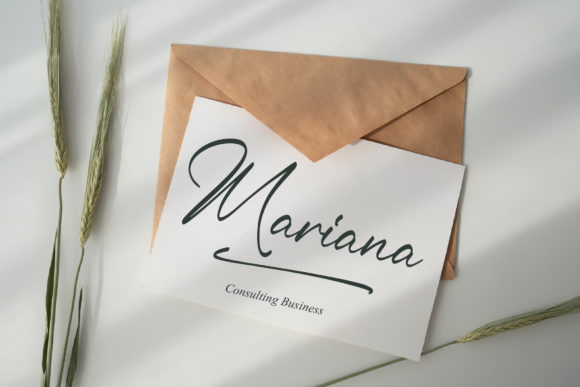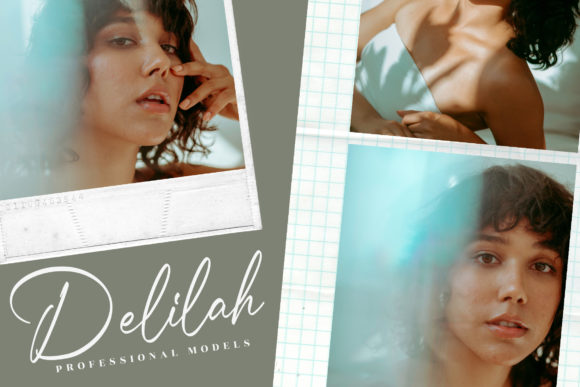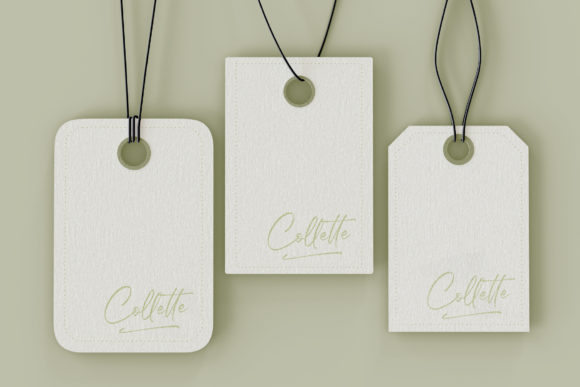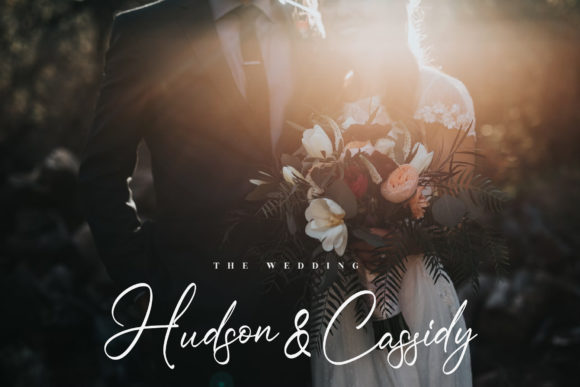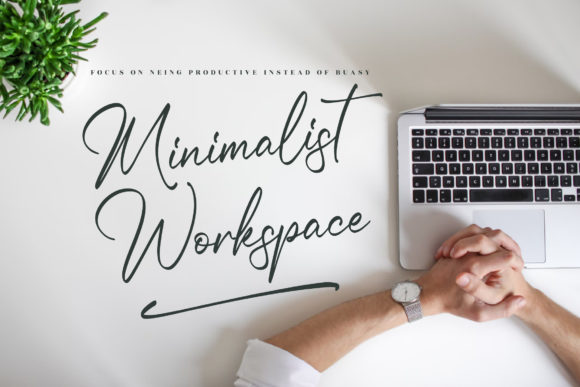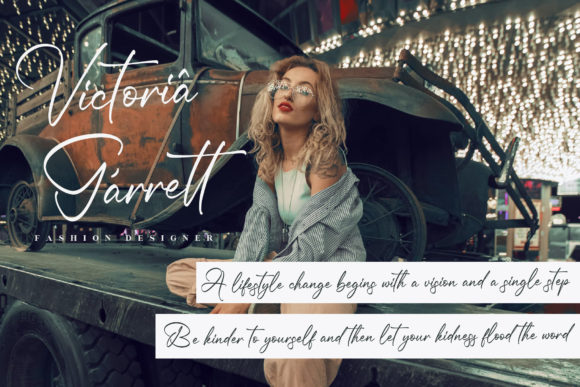
Introduction to Rasttelina Font
Have you ever found yourself in the midst of a creative project, staring at a blank page, and wondering what the perfect font can do to bring your vision to life? For designers, the right font can be the difference between a good design and a great one. It’s that one element that can elevate the entire aesthetic of your work and leave a lasting impression on your audience.
That’s where the Rasttelina Font comes in – a beautiful script font that exudes elegance and sophistication. With its contemporary atmosphere and impeccable form, inspired by timeless classic calligraphy, this font is a valuable resource for designers looking to add a touch of high quality to their creative projects. Whether you’re working on a design project that requires a transparent background or simply want to add some flair to your typography, Rasttelina Font is an excellent choice.
Key Features of Rasttelina Font
- High-quality font design suitable for creative projects, offering a unique aesthetic.
- Features a unique blend of modern and vintage elements, setting it apart from other fonts in its class.
- Designed with high resolution in mind, ensuring crisp and clear text display at various sizes and resolutions.
- Perfect for use in digital design, print media, and other creative projects where a distinctive font is desired.
Honest Review: Rasttelina Font
- ✨ High-quality design: The Rasttelina Font boasts a unique and modern aesthetic that’s perfect for creative projects.
- ✨ Transparent background: The font has a transparent background, making it easy to layer and combine with other design elements.
While the Rasttelina Font is a solid choice for designers, there are a few limitations to consider. The font is only available in a limited range of weights and styles, which may not be ideal for projects that require a lot of customization.
- ⚠️ Limited weight options: The font only comes in a few weights, which may limit its use in certain design scenarios.
- ⚠️ Not suitable for large-scale use: Due to its limited weight options, the Rasttelina Font may not be the best choice for large-scale design projects.
Overall, I’m impressed with the Rasttelina Font’s design quality and the fact that it’s available for free download. While it may not be suitable for every design project, it’s a great resource to have in your toolkit.
Tips for Getting the Most Out of Rasttelina Font
Experiment with different font sizes, colors, and styles to create a unique visual effect. Use the font in combination with other design elements, such as images and graphics, to add depth and interest to your design project.
Rasttelina Font is ideal for creative projects that require a high-quality, transparent background font. Some common use cases include:
- Digital art projects
- Website design projects